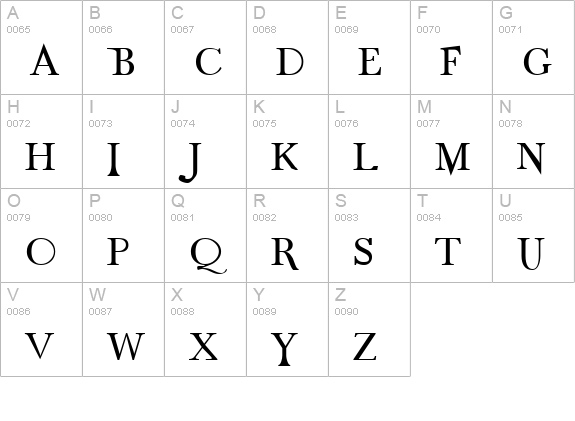
Old Dog, New Tricks Caps Font Details
Old Dog, New Tricks Caps font is a charming and versatile typeface that exudes a sense of nostalgia and sophistication. With its unique blend of vintage flair and modern appeal, this font is perfect for adding a touch of elegance to any project. The all-caps design features stylish, ornate letters that evoke a classic aesthetic while still feeling fresh and contemporary. Whether you're working on a branding project, poster design, or any other creative endeavor, Old Dog, New Tricks Caps font will add a touch of character and personality to your work. Its timeless appeal makes it suitable for a wide range of applications, from print materials to digital designs. Best of all, Old Dog, New Tricks Caps font is available for free download at FontsMarket.com. So go ahead and give your designs a stylish upgrade with this beautiful and versatile typeface.